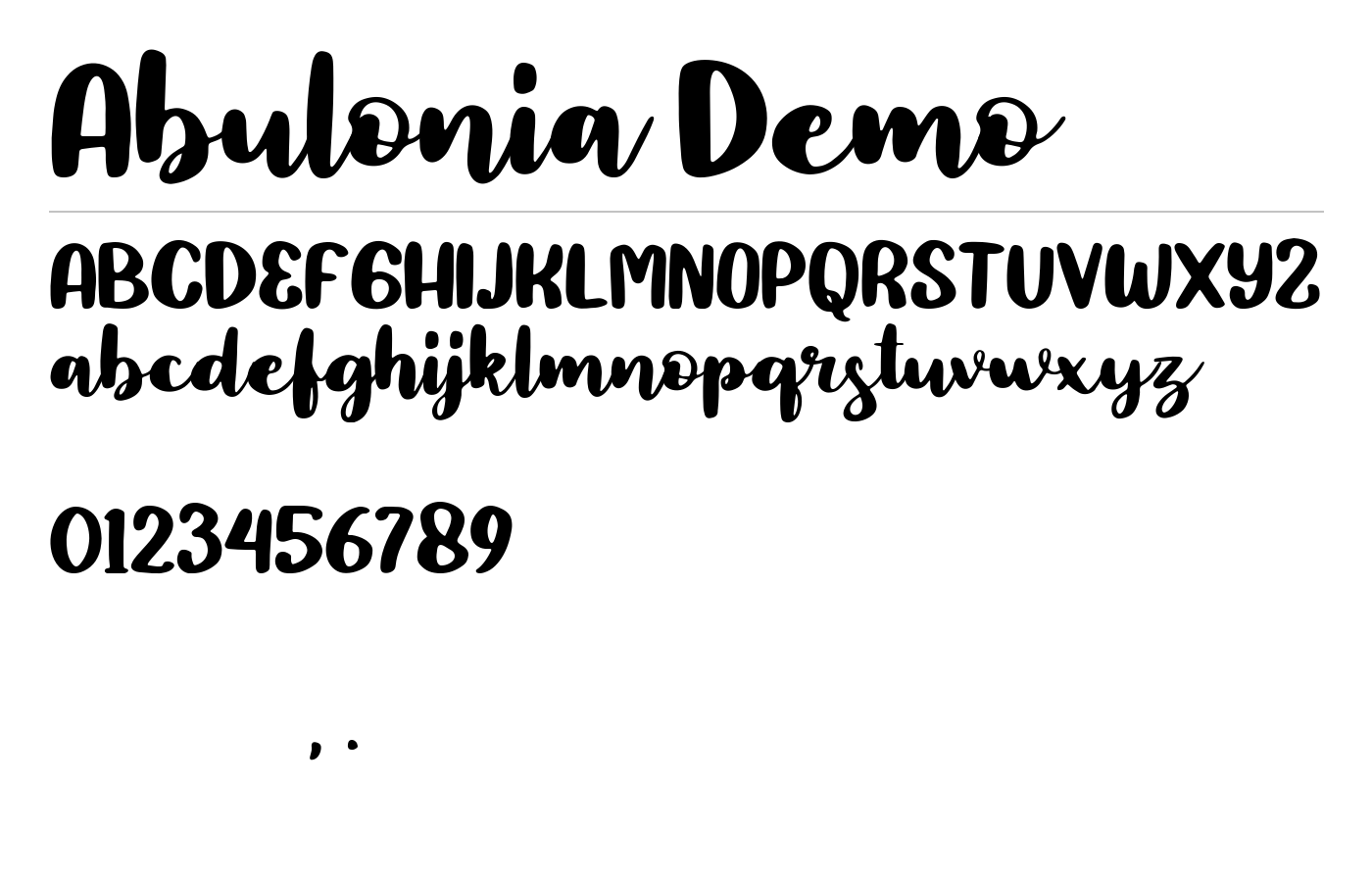
Abulonia Demo is a bold, playful script font with a handwritten feel, featuring rounded, smooth strokes and a lively personality. Its friendly and casual style makes it perfect for branding, packaging, and headlines that seek warmth and approachability. This font works well where a personal, inviting touch is desired, adding charm and character to creative projects.
Abulonia Demo Font
About Abulonia Demo Font
| Font family | Abulonia Demo Font |
| Designer | Forberas Club |